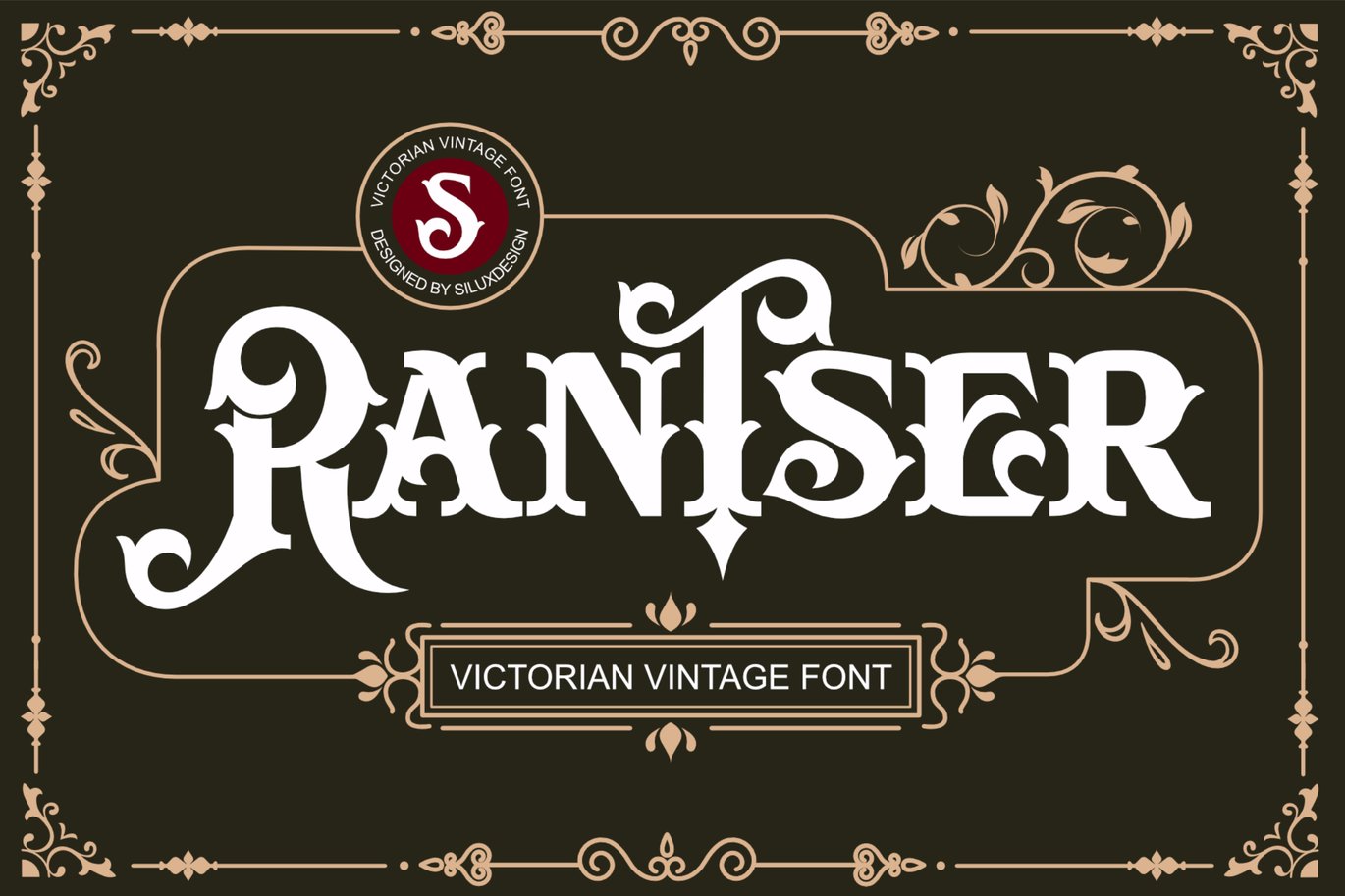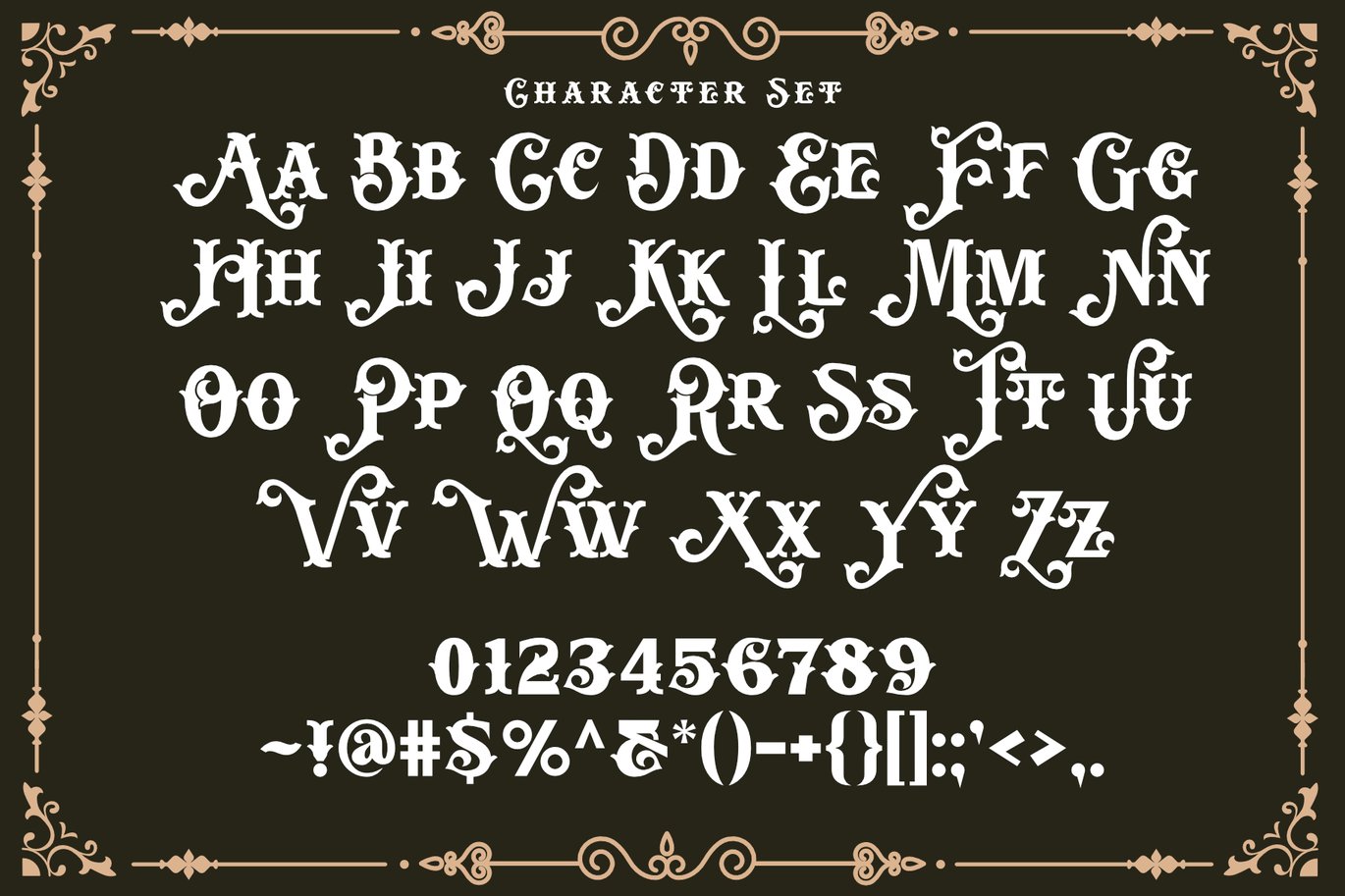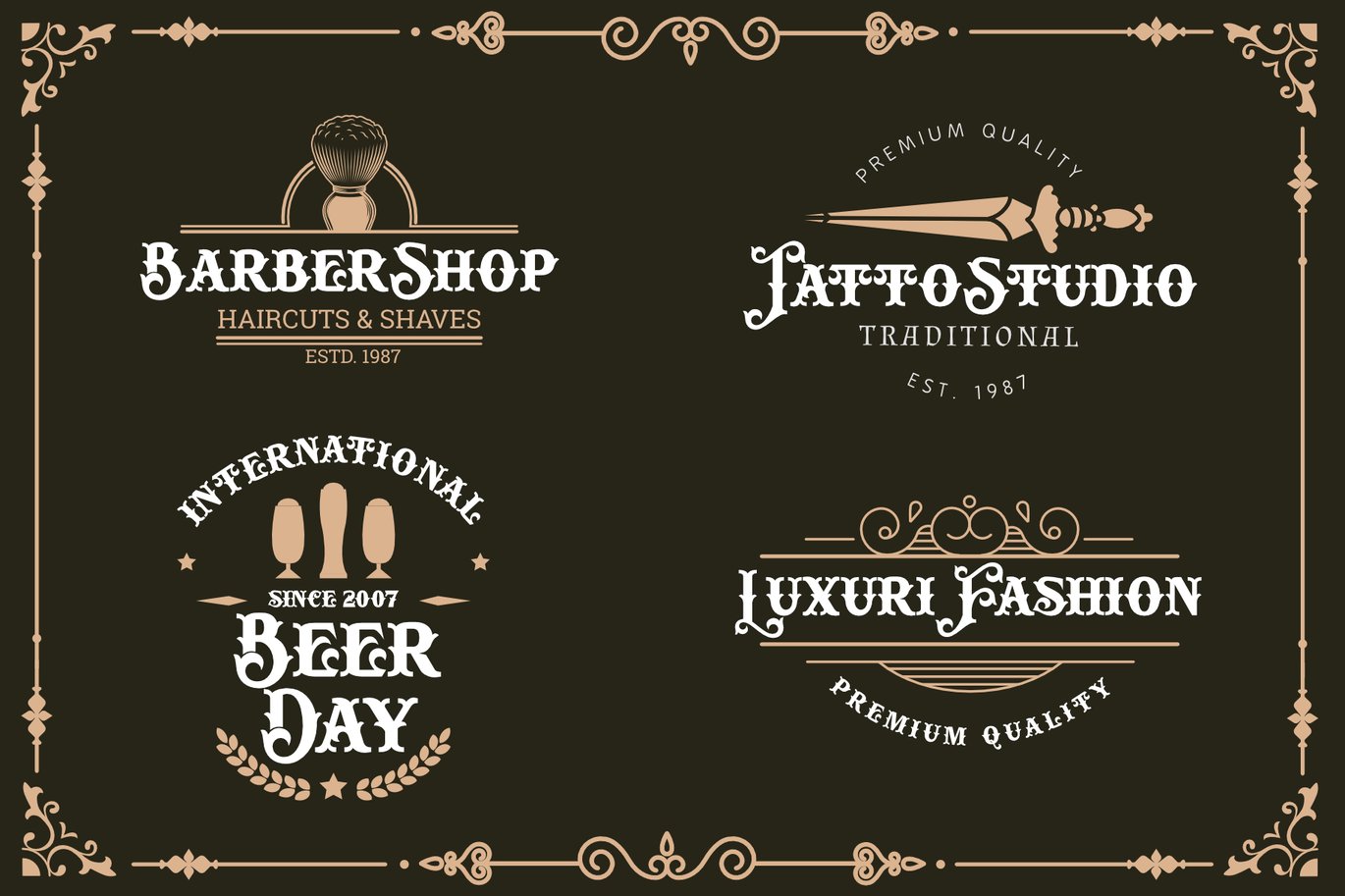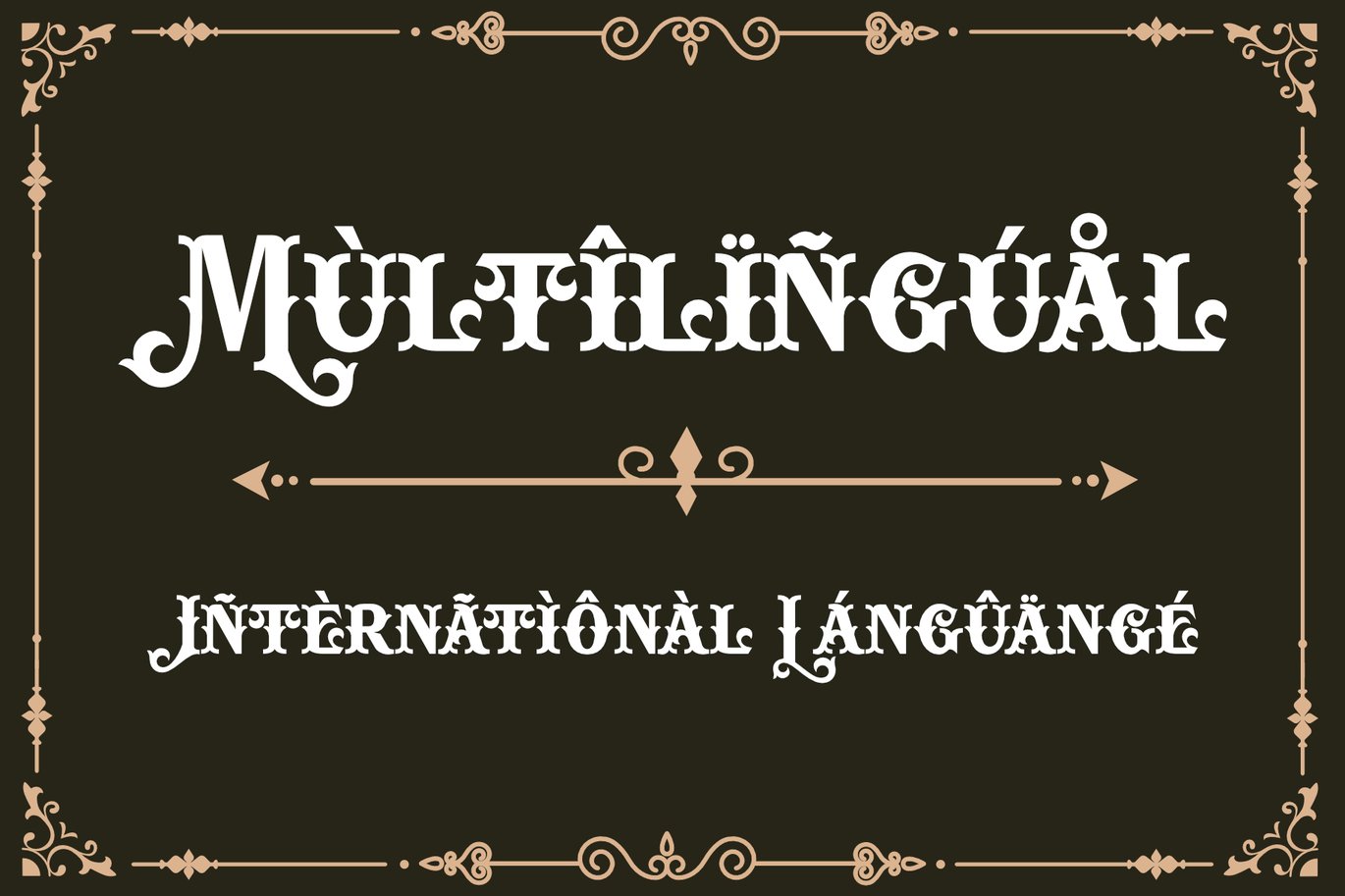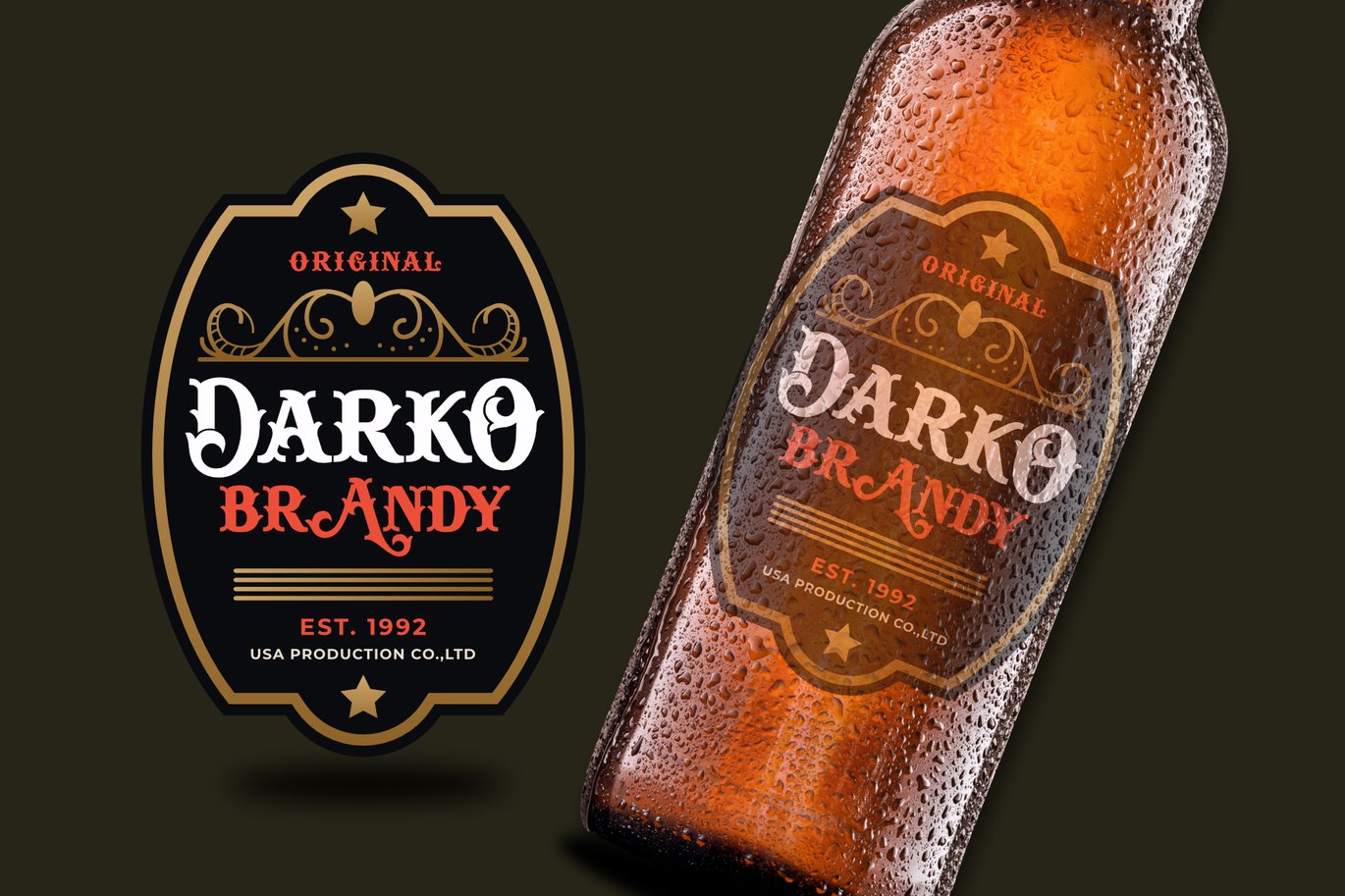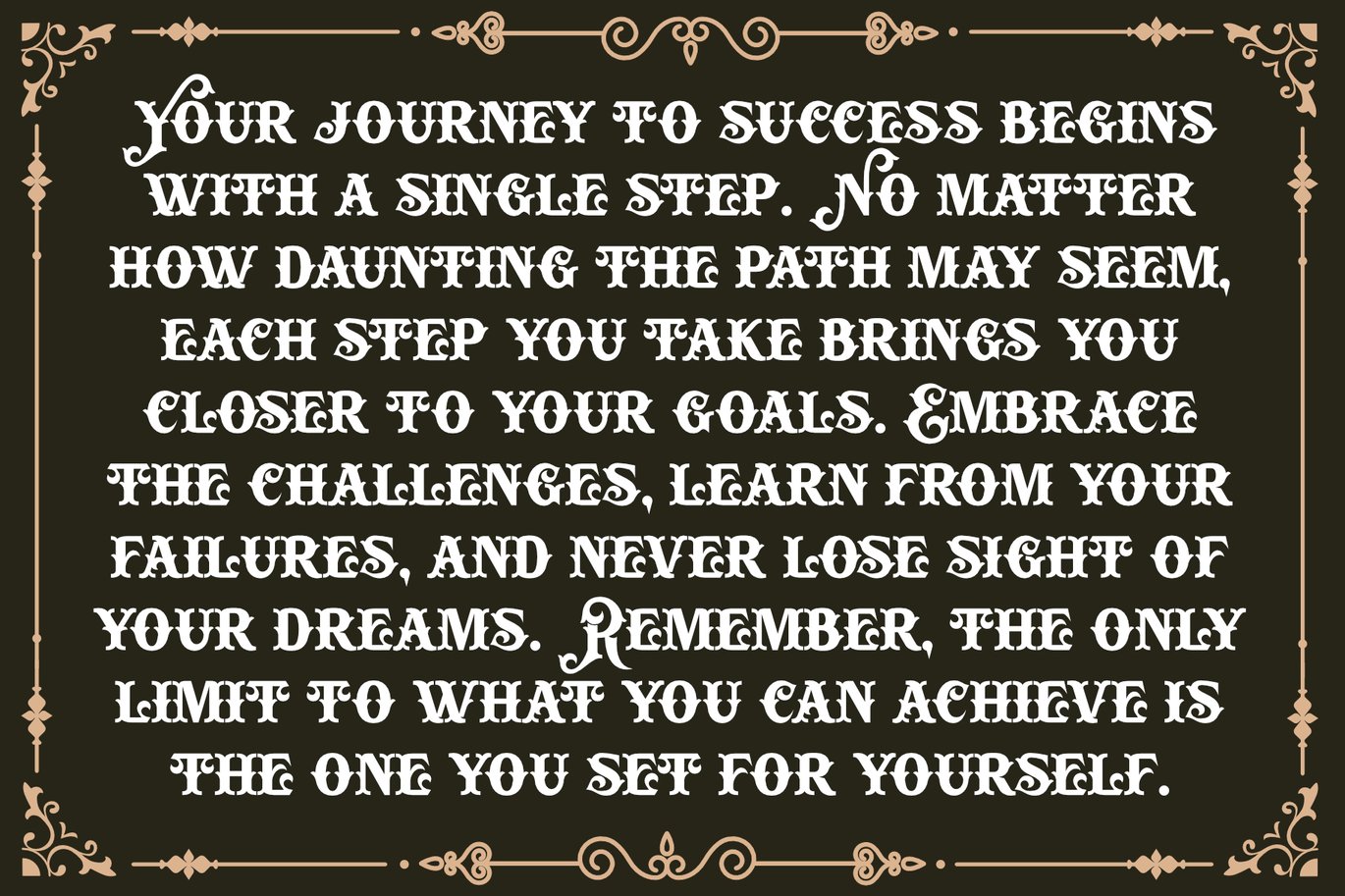
Rantser – Victorian Vintage Font
Make your designs look memorable, vintage, and classy with the Rantser Victorian typeface. It’s an easy way to bring old memories into your documents, posters, logos, and more. A perfect choice for a classical style.
Very Victorian, ornamental, decorative, and classical. This solid combination can transport your designs, logos, documents, websites, and more back to the 1800s. It comes with both and decorative modern style versions.
- Alternate characters for uppercase and lowercase are ready to decorate your logo
- Numerals & Punctuations
- Multilingual Language